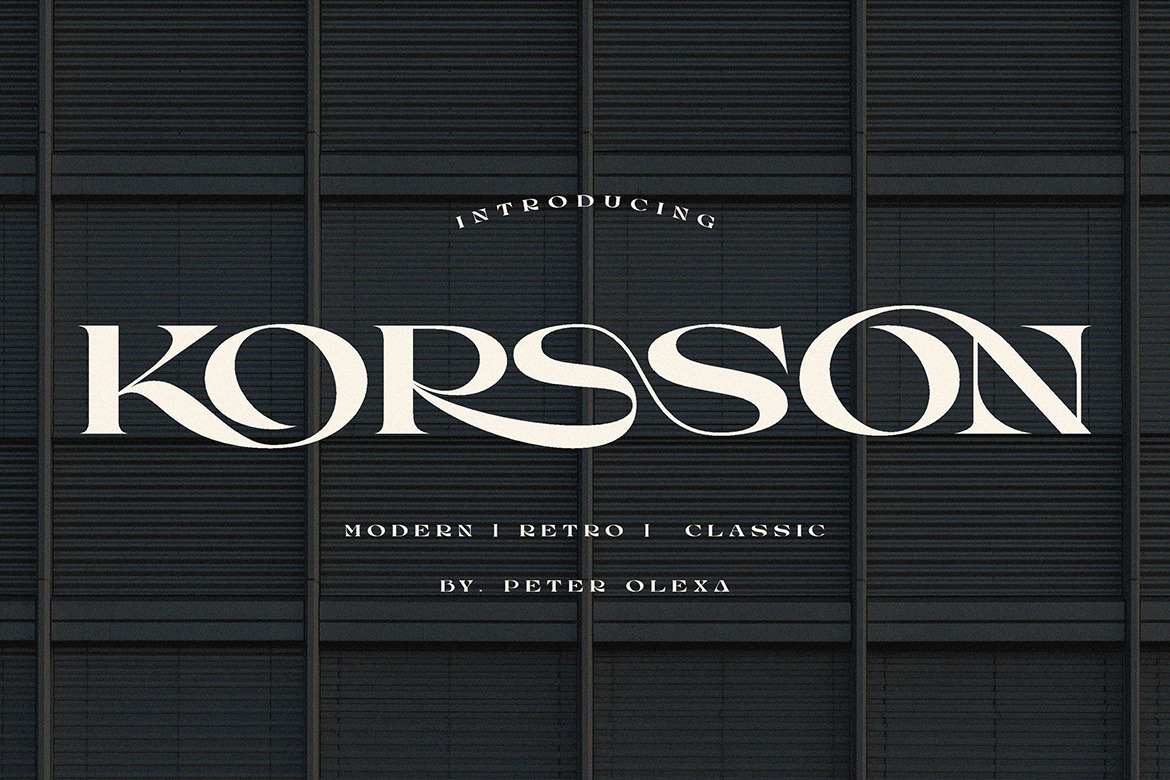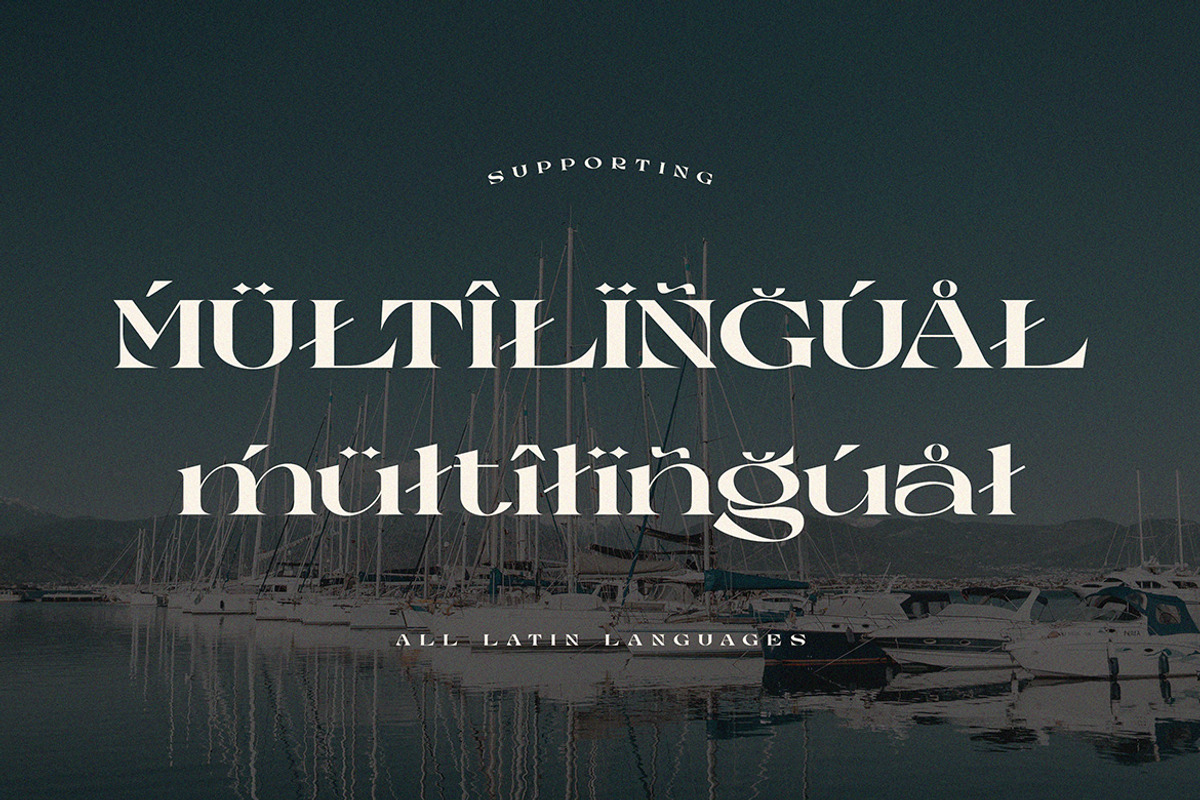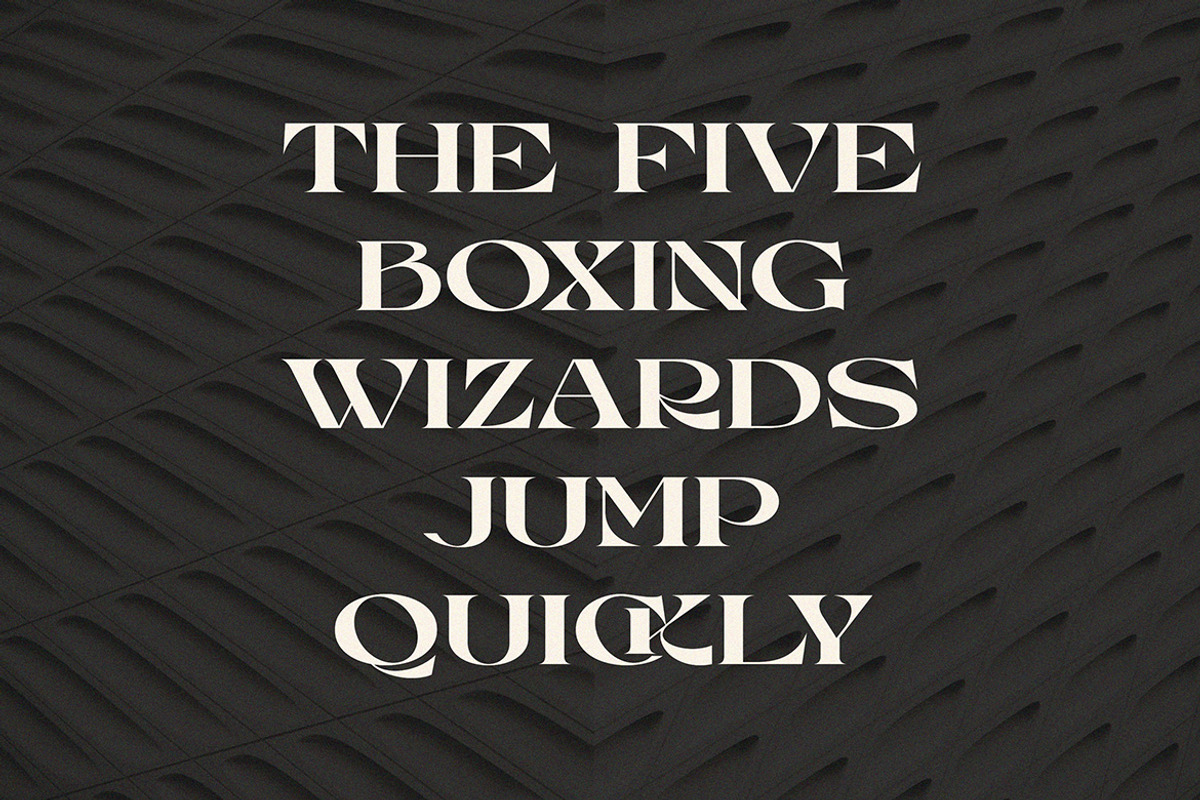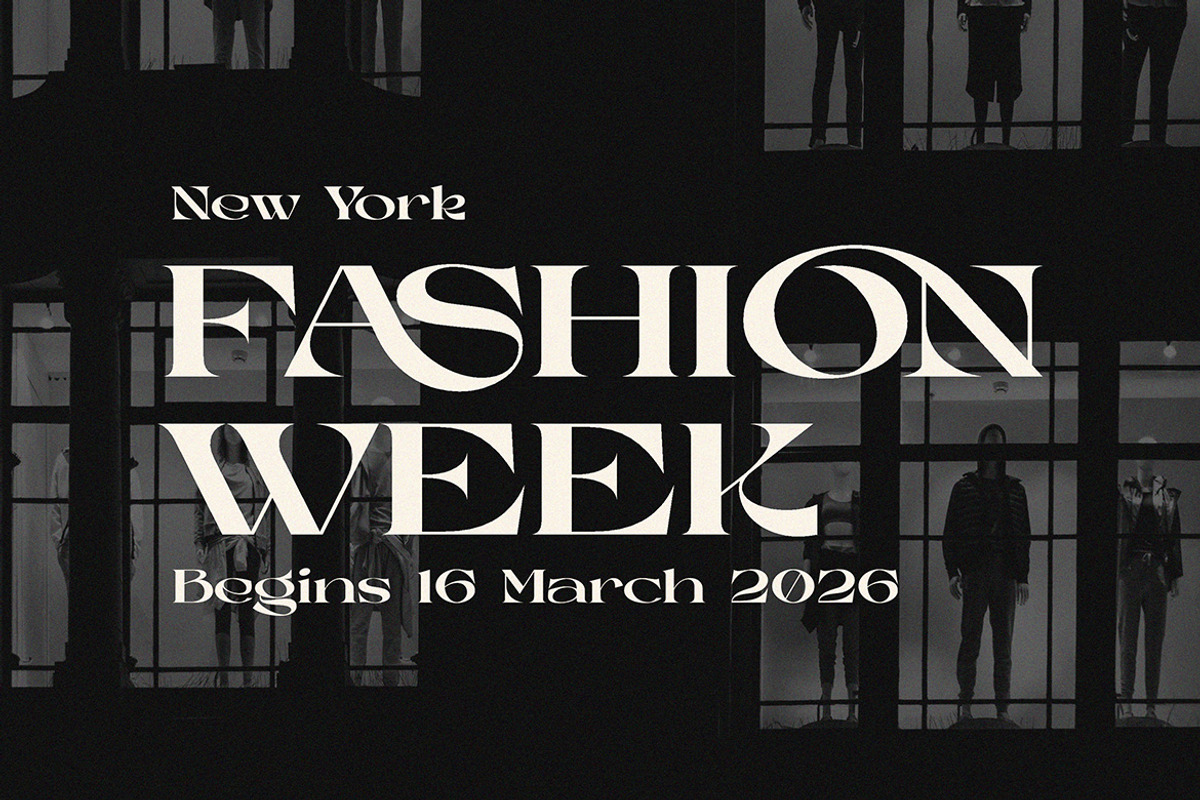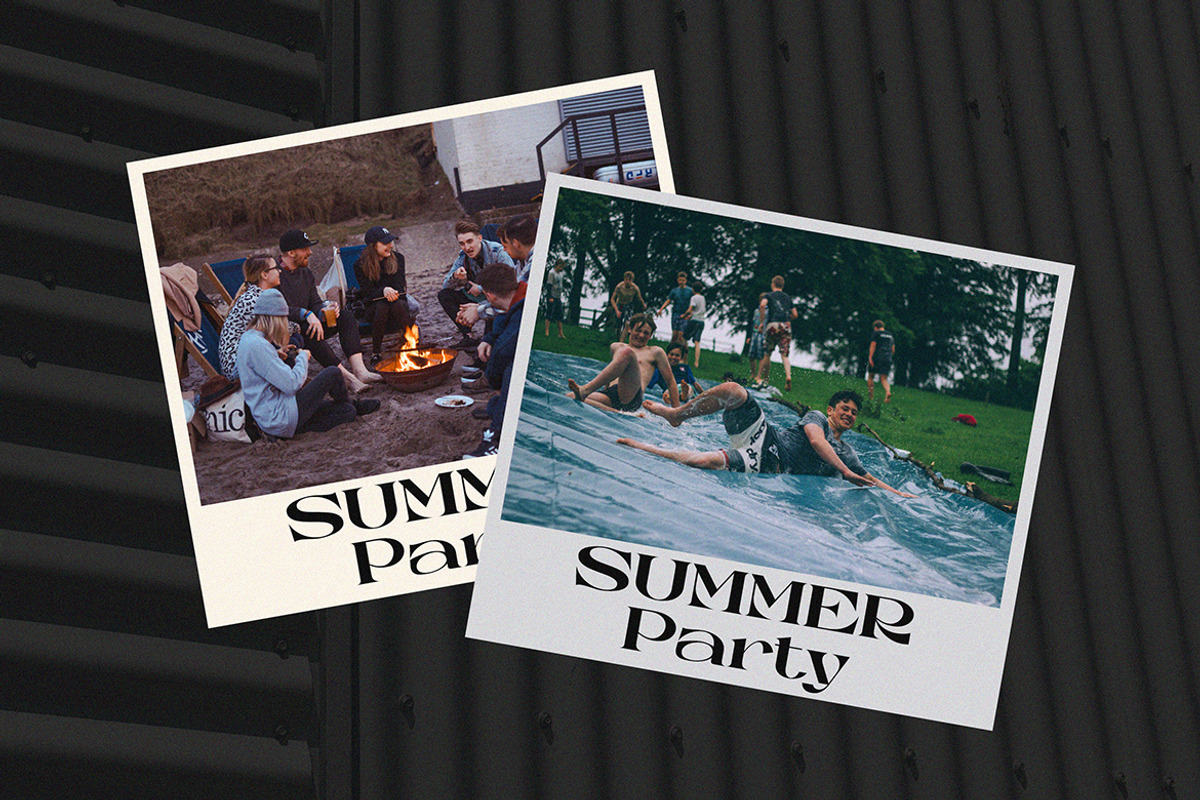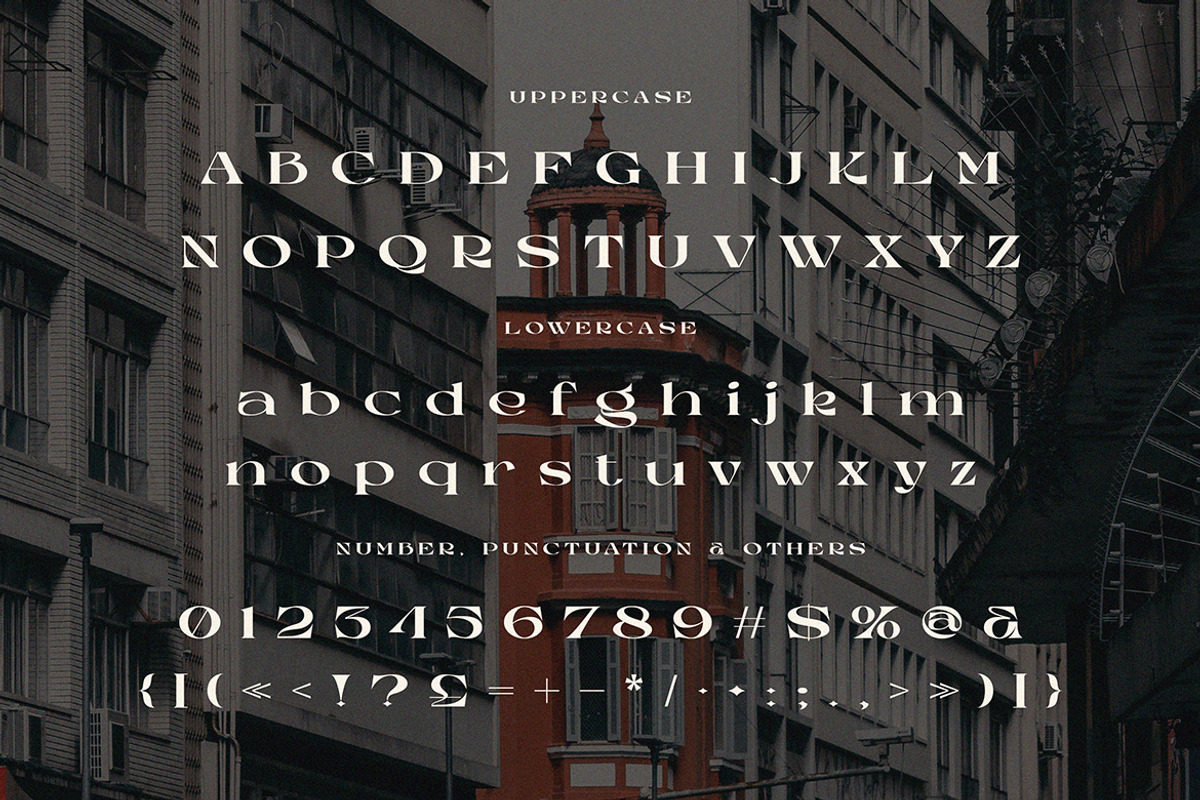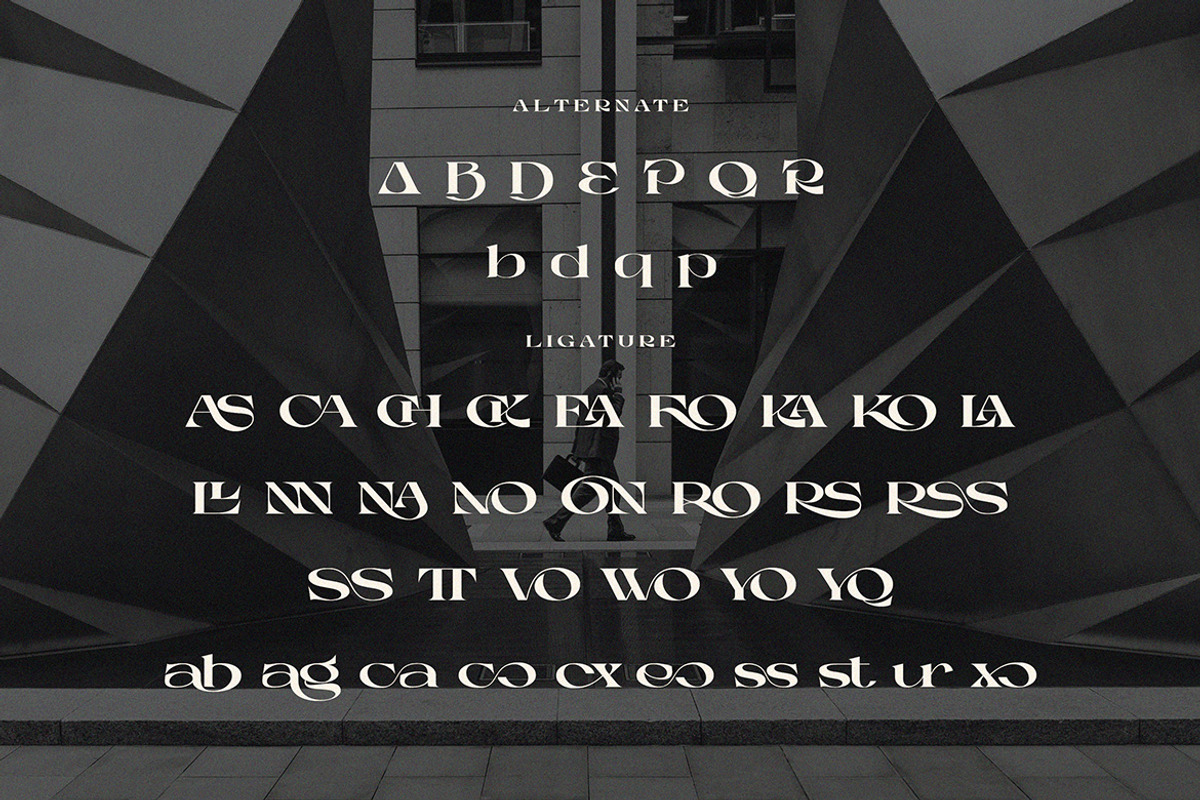
Korsson - Modern Serif Font
Trendy, classy, bold & modern style serif font for your fancy projects. Elegant, fashion and classic style on Korsson font will be great for any branding project. Lot of alternates and ligatures will help you to create unique and original logo design or website header! Enjoy :)
- Lot of alternate characters
- Lot of ligatures
Great for modern branding projects!